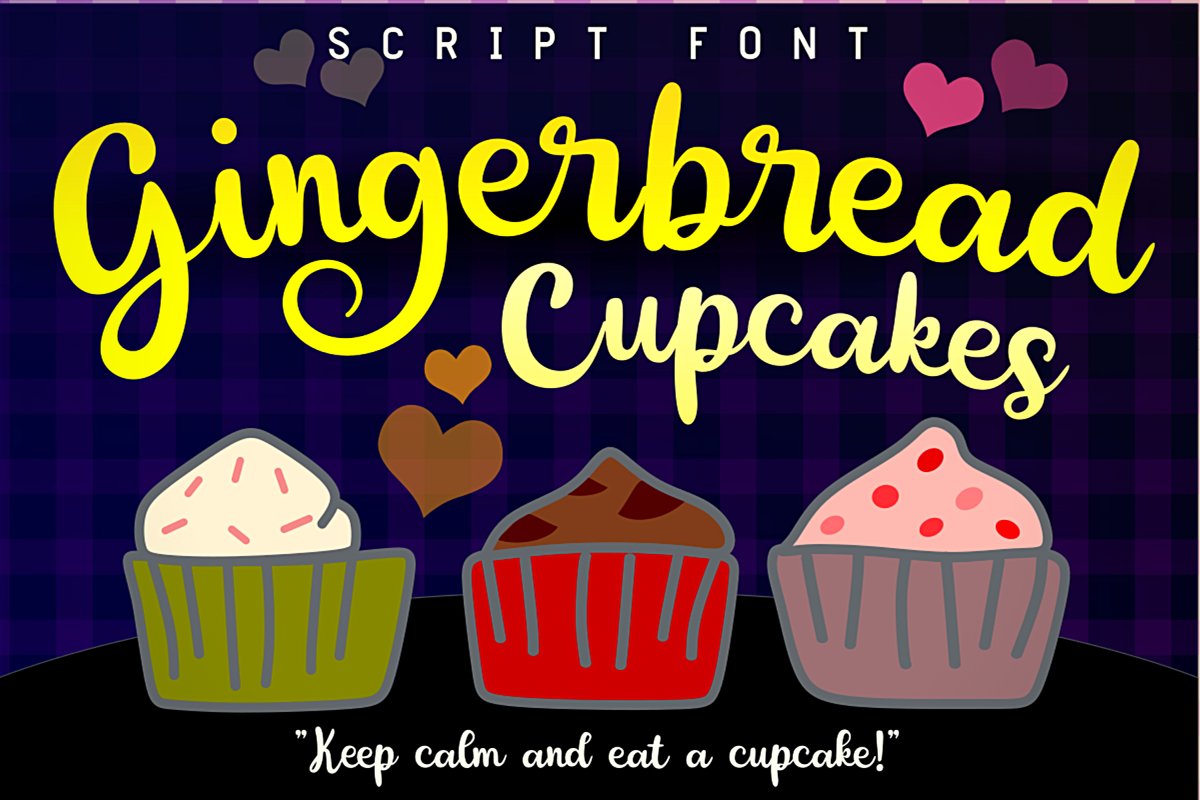
Gingerbread Cupcakes
Introducing Gingerbread Cupcakes Script Font.
Suitable for posters, social media, book titles, cards, magazine, logos, merchandises, and many more.
Support multilingual.